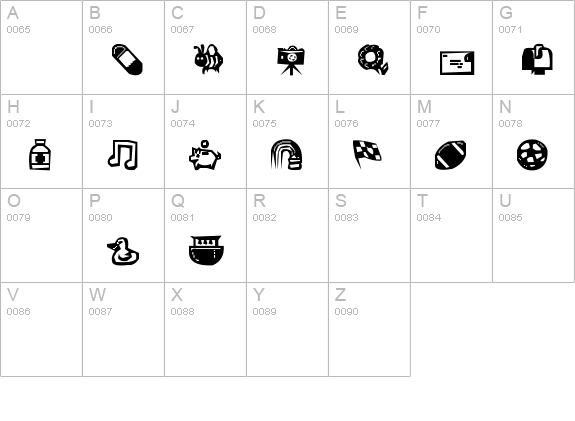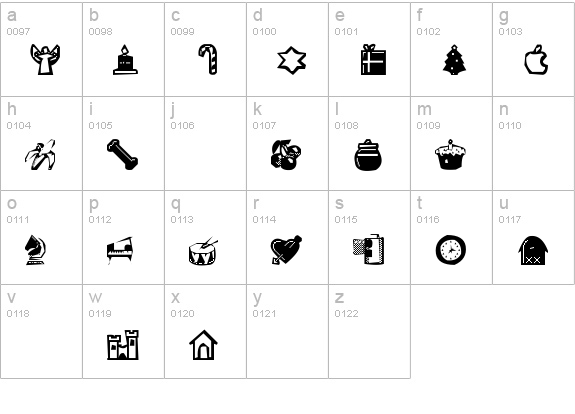
Introducing Bits 'n' Pieces font, a whimsical and playful typeface that will add a touch of charm to your projects. This font features a unique blend of irregular shapes and quirky designs, giving your text a fun and energetic vibe. Bits 'n' Pieces is perfect for a variety of creative projects, from branding to social media posts to invitations. The best part? Bits 'n' Pieces font is completely free to download at FontsMarket.com. You can easily access this delightful font and start using it in your designs right away. Don't miss out on the opportunity to add a playful twist to your creations with Bits 'n' Pieces font. Download it now and let your imagination run wild!